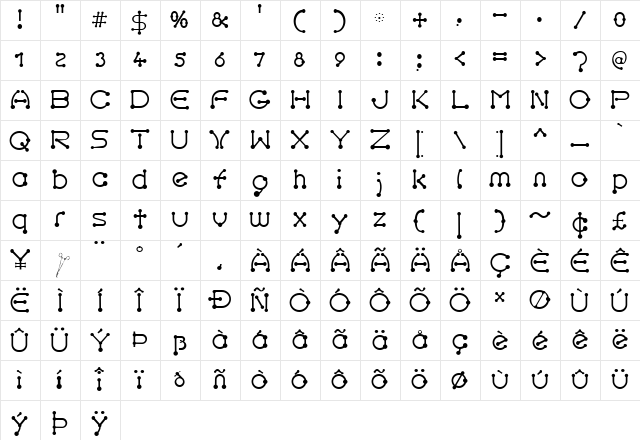
pierced Regular
Foundry: Otto Maurer
Designer: Otto Maurer
Design Context for pierced
pierced is a composed and adaptable typeface that performs quietly and consistently across a wide range of design contexts.